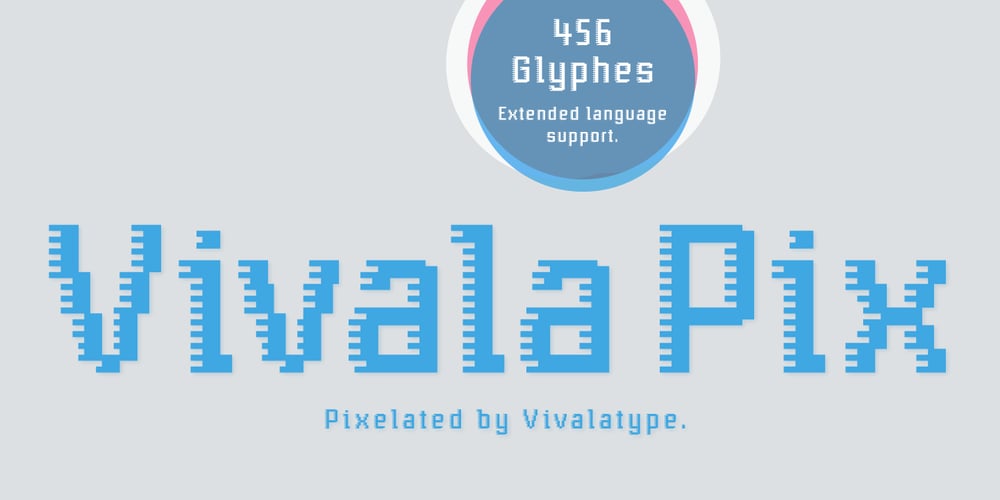
Vivala Pix Font Family was designed by Johannes Hoffmann and published by Johannes Hoffmann. Vivala Pix contains 1 styles and family package options. The pixel font is designed based on a 25 grid. Ideal for headlines, but also easy to read in smaller font sizes. The font supports 219 languages and is equipped with a large symbol set.